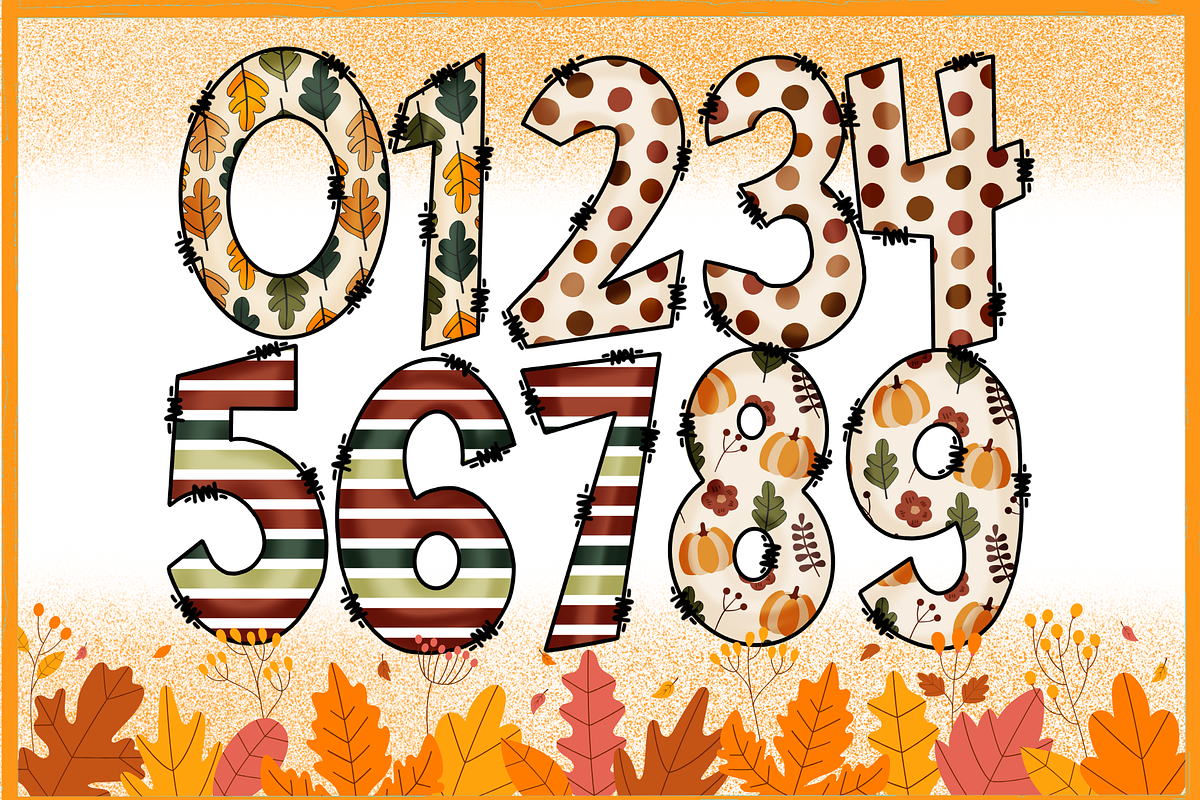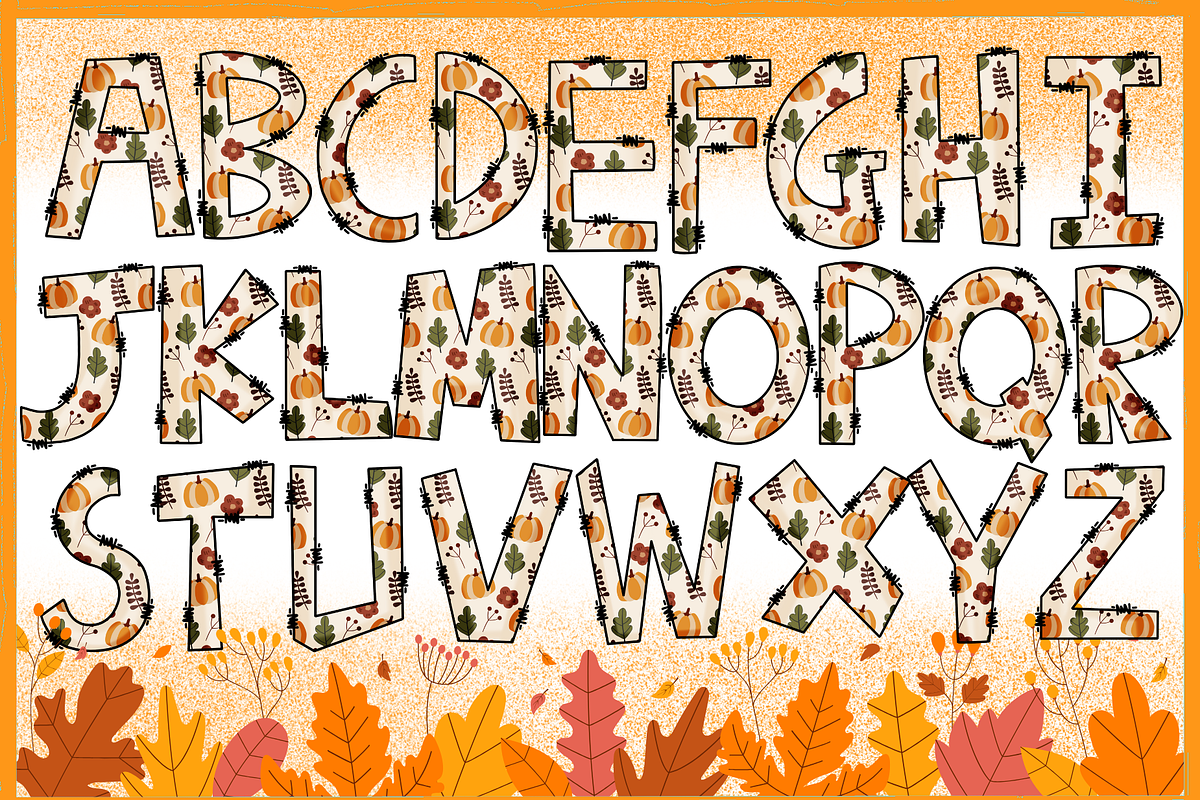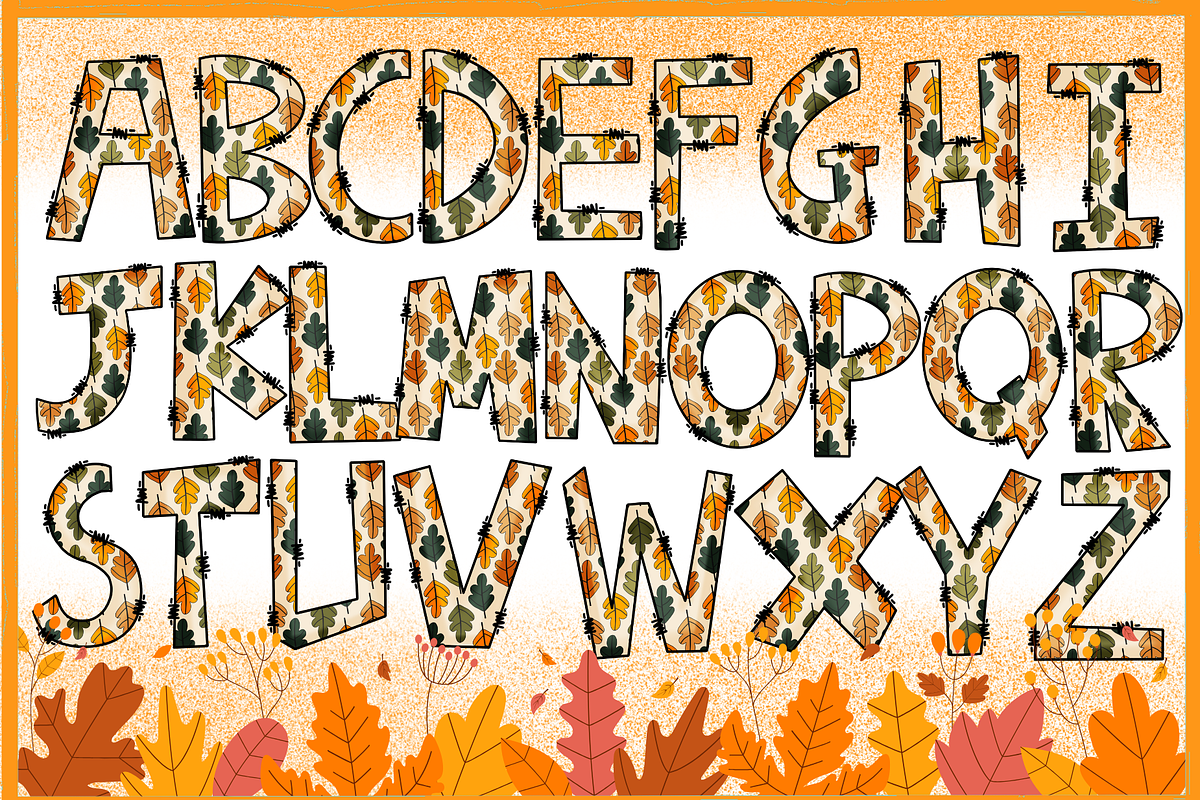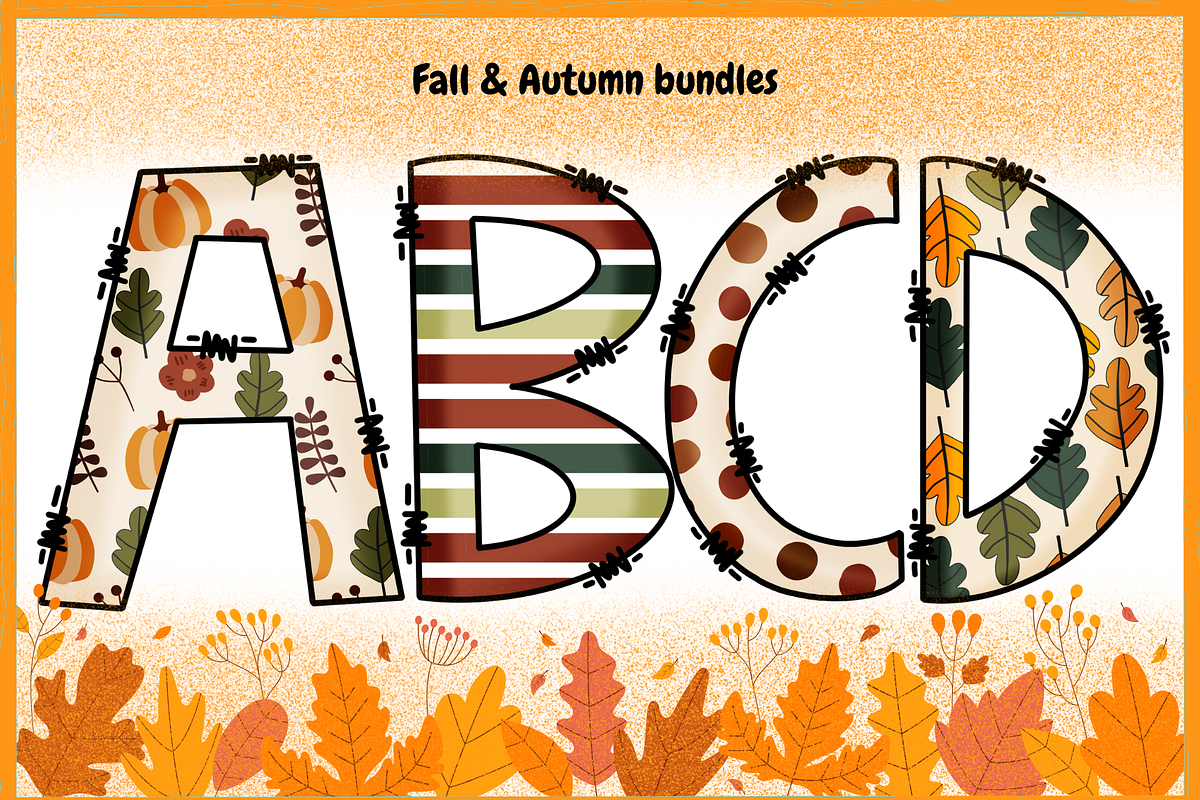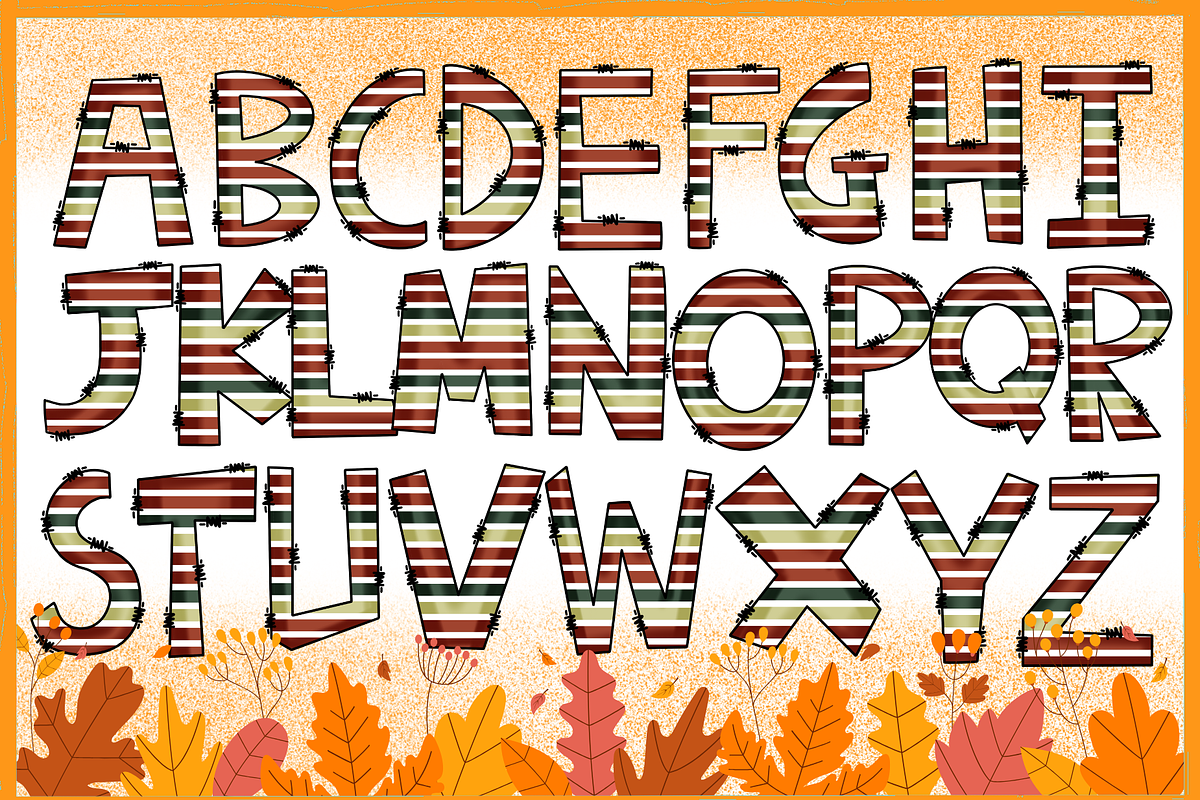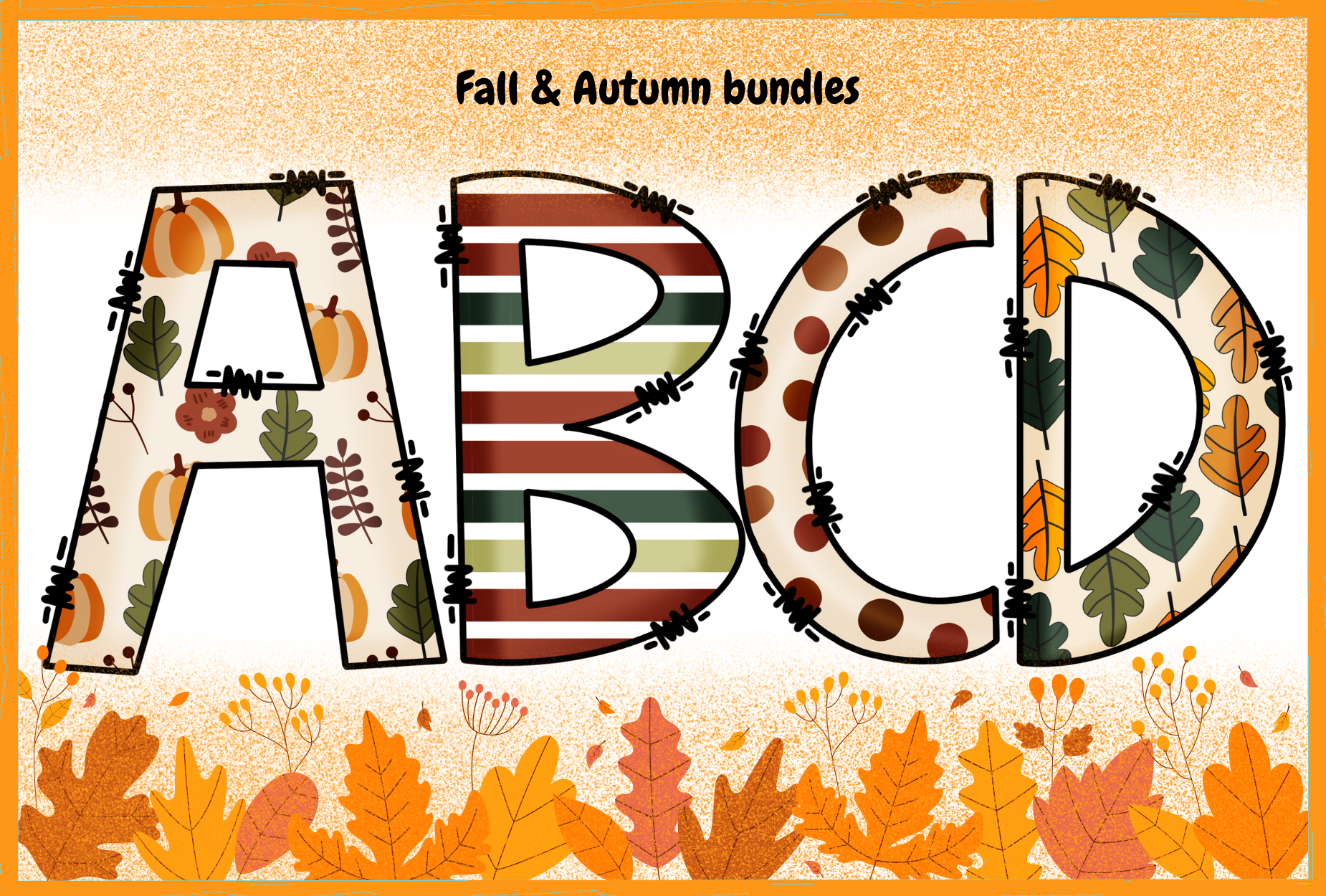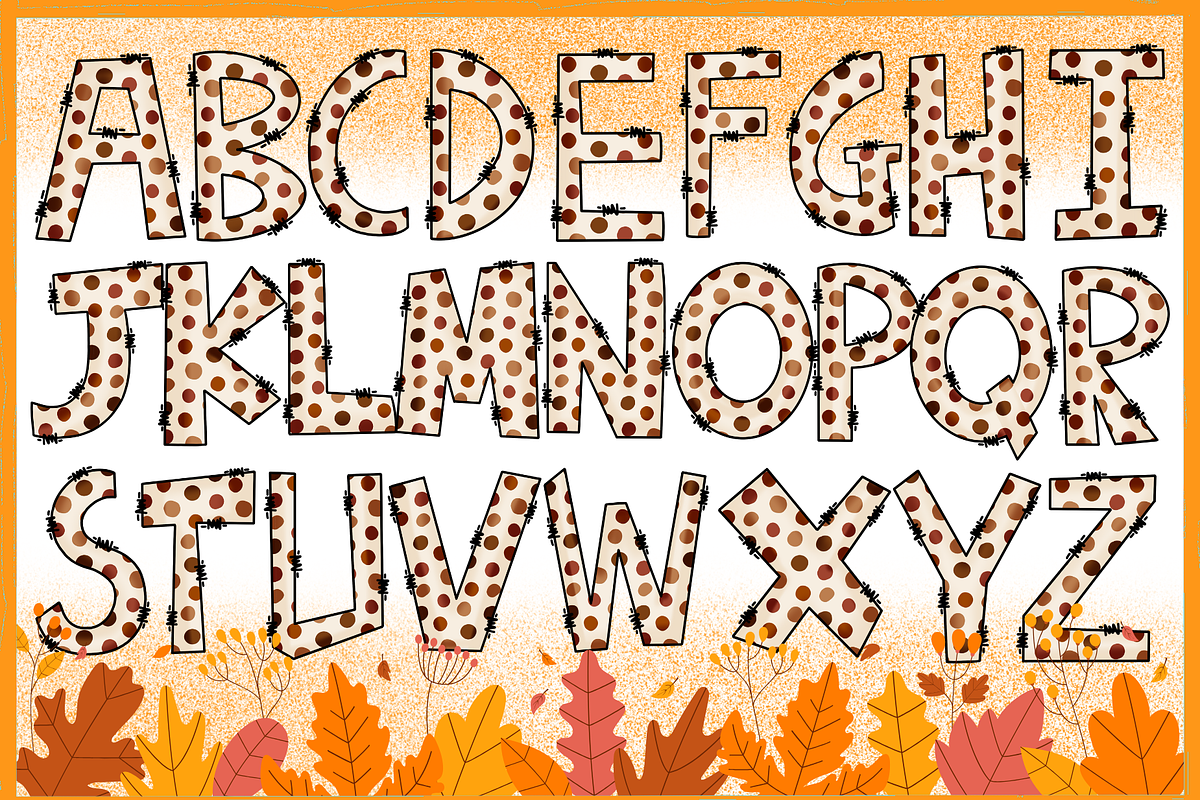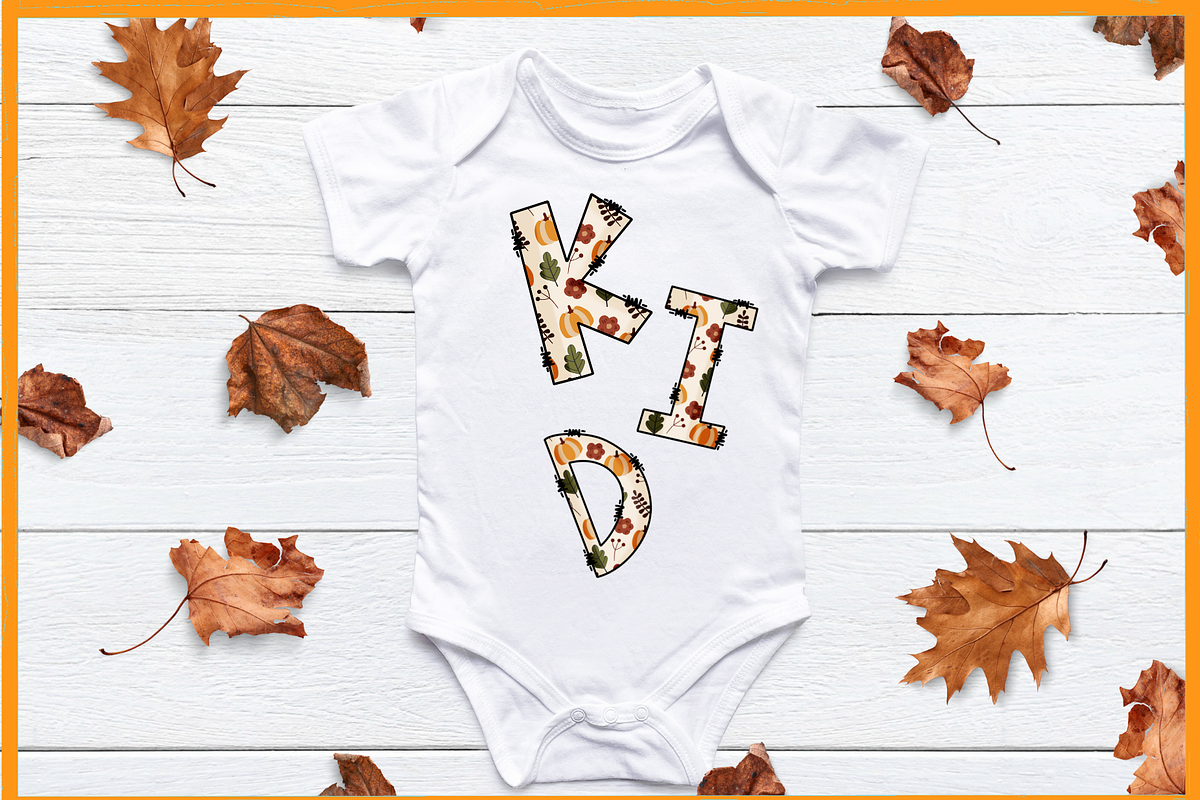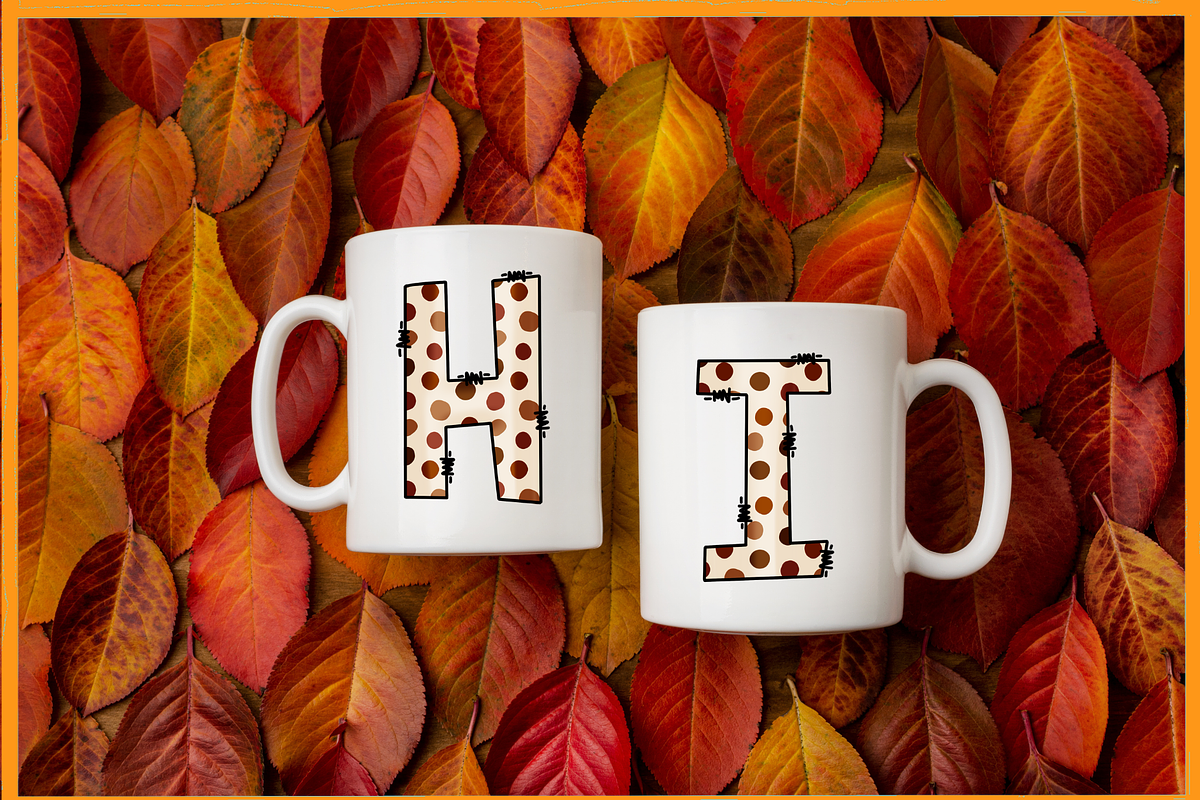
Fall & Autumn-PNG fonts
Fall & Autumn Font Celebrate the cozy season with this Fall & Autumn Alphabet Bundle! Each letter is filled with warm seasonal patterns like pumpkins, leaves, dots, and stripes in rich autumn tones.